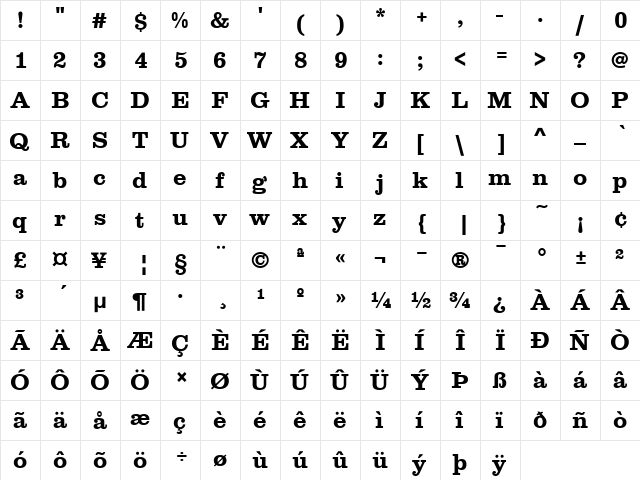
Clarendon T Regular
Clarendon T features prominent, blocky serifs that give it a confident, grounded presence — equally at home in editorial settings and bold branding work.
Suited to magazines, political campaign materials, bold packaging, and any setting where authority matters.
Pro Tip: Use Clarendon T for headlines and subheadings where its slab serifs can make an impression. It also holds up well in mid-size body copy thanks to its sturdy construction.